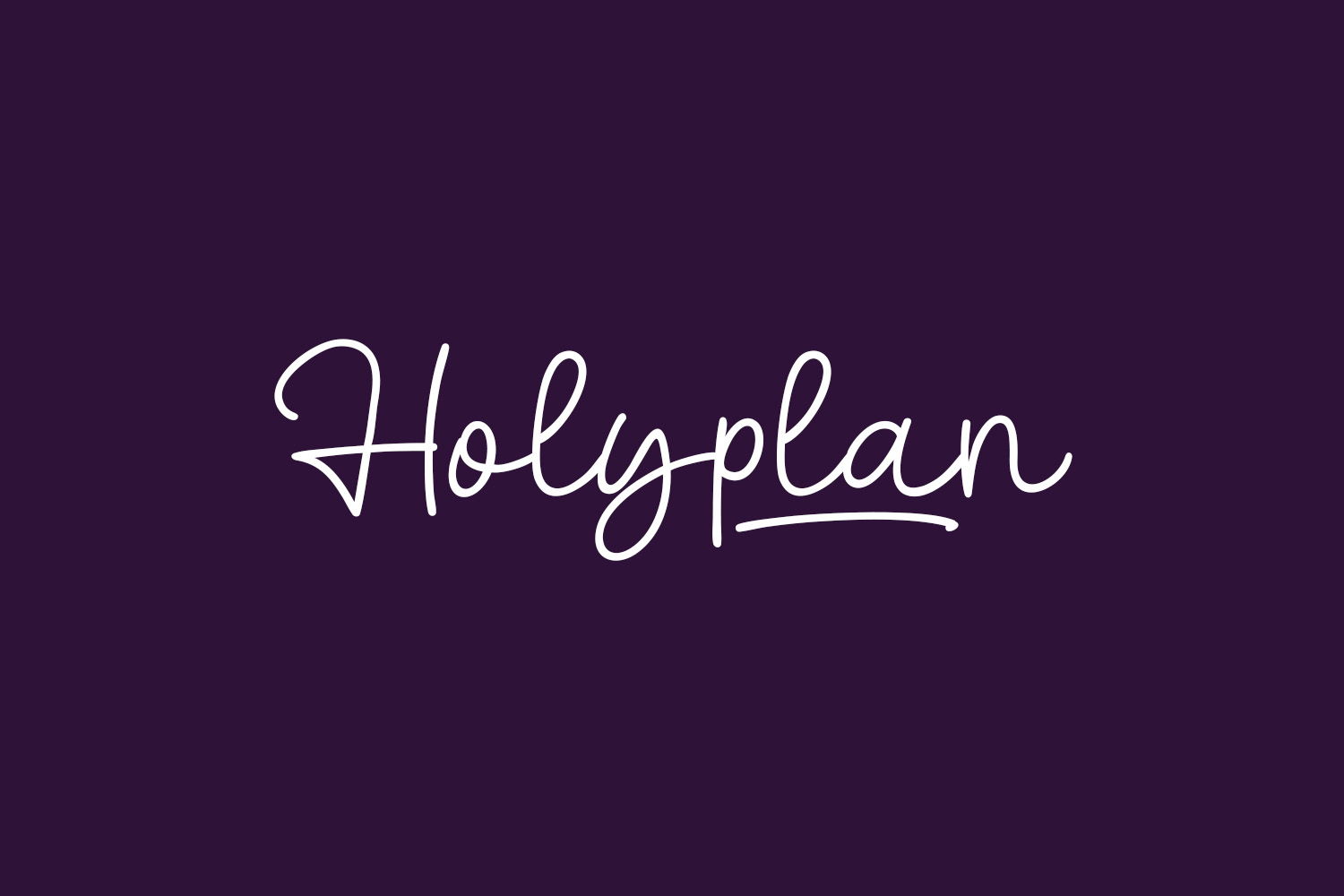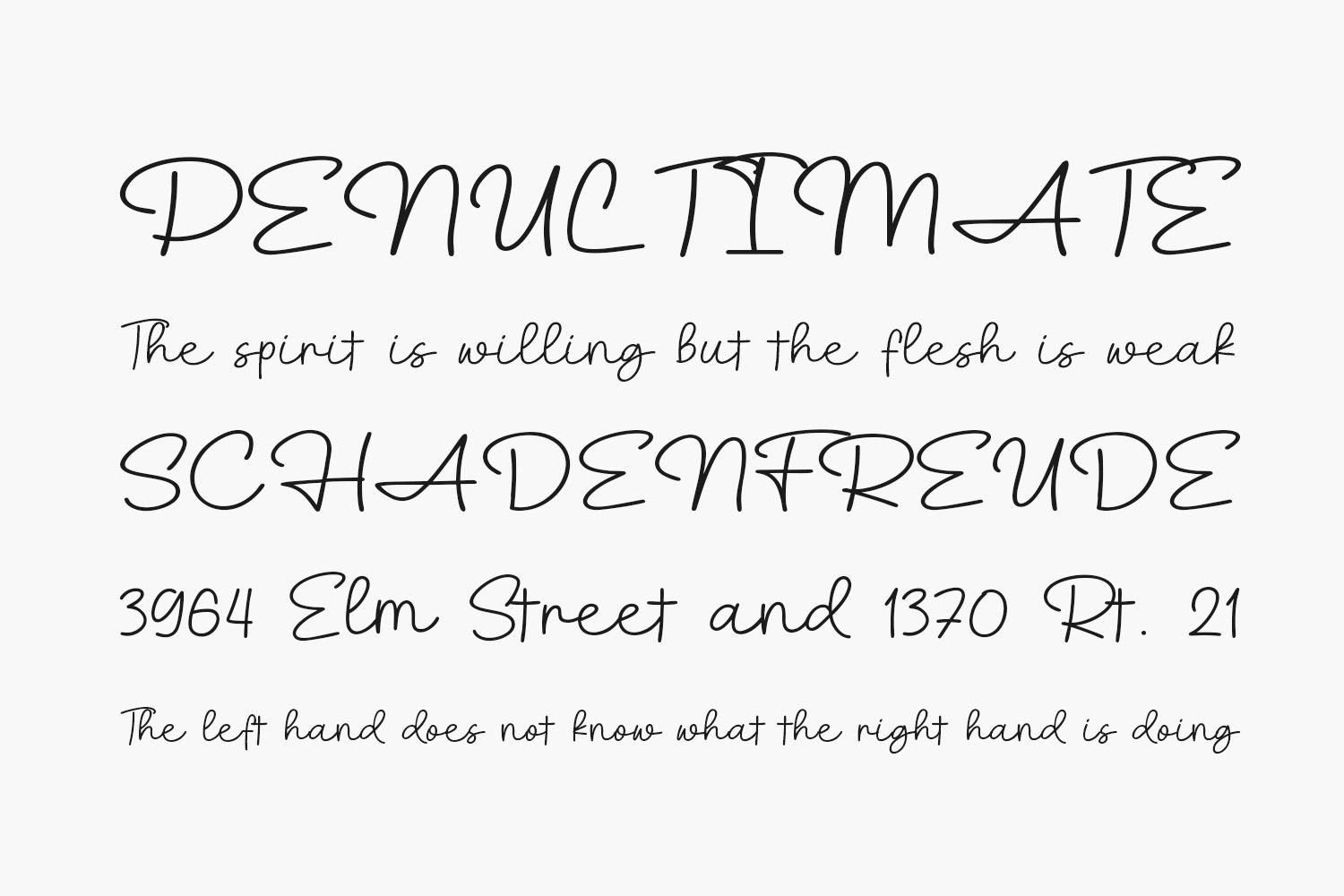
Introducing Holyplan Free Font, a pristine, stylish, modern, and sophisticated script font ideal for posters, logos, magazines, book covers, banners, and beyond! Elevate your designs with this extraordinary font that effortlessly complements a wide range of projects. Add Holyplan to your creative arsenal, and observe how it gracefully makes your ideas stand out with its timeless charm and elegance. Holyplan Free Font was designed by Khurasan and is free for personal or commercial use.